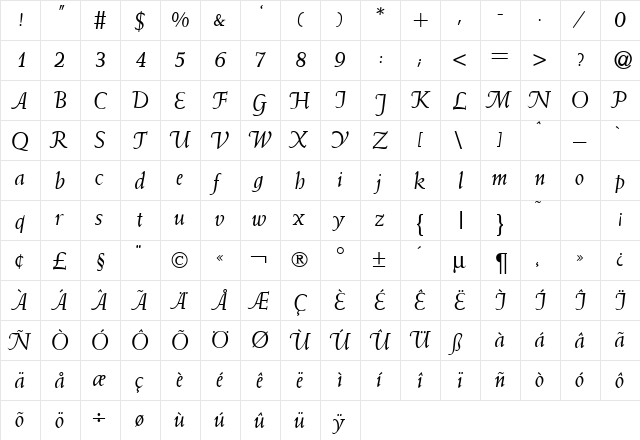
WeinDB Italic Font Preview
WeinDB Italic
WeinDB Italic Font Details
Design Context for WeinDB Typeface
WeinDB is a composed and adaptable typeface that performs quietly and consistently across a wide range of design contexts. The dynamic lean of this cut emphasises speed and emphasis in any layout.